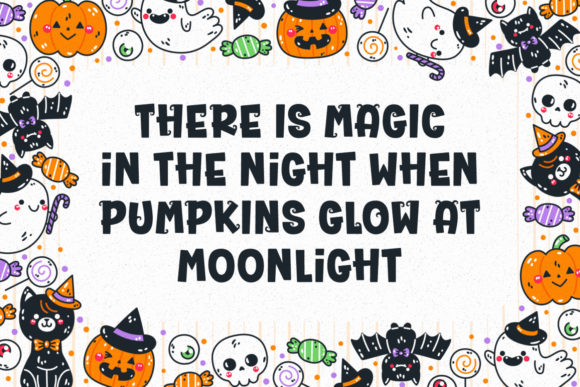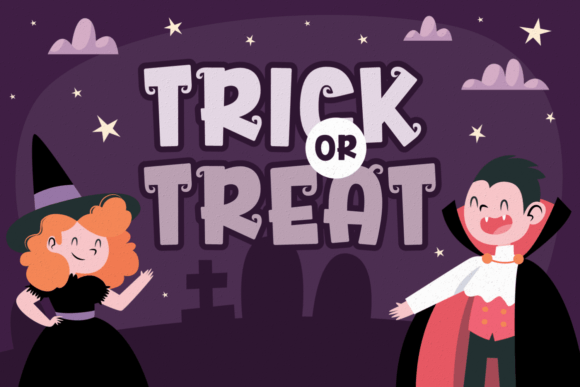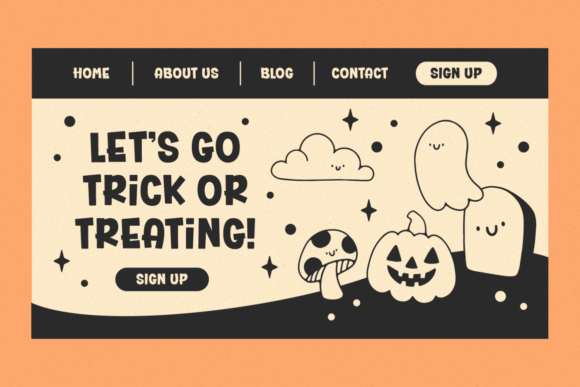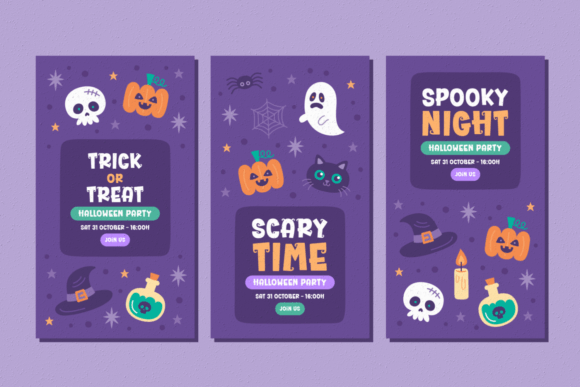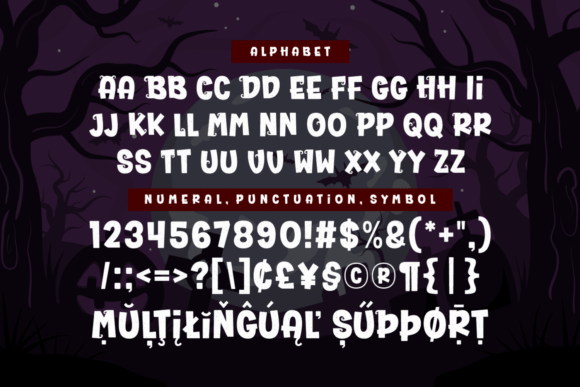
Introducing Giant Witch Font: The Perfect Addition to Your Whimsical Designs
Are you a designer or crafter looking for a unique and playful font to add a touch of magic to your projects? Look no further than the Giant Witch Font! This fun and whimsical display font is perfect for Halloween designs, fantasy-themed crafts, and any project that needs a dash of playfulness.
The Characteristics of Giant Witch Font
Giant Witch Font is a one-of-a-kind display font that features curly little tails on each letter, giving it a truly magical feel. The font’s playful and whimsical design makes it perfect for a variety of projects, from Halloween-themed decorations to fantasy-inspired crafts. The curly tails add a touch of elegance and sophistication, making it suitable for a wide range of design applications.
Uses for Giant Witch Font
So, what can you use Giant Witch Font for? The possibilities are endless! Here are a few ideas to get you started:
- Halloween Designs: Add a touch of spooky whimsy to your Halloween designs with Giant Witch Font. Use it to create eye-catching titles, headings, and decorations for your Halloween-themed projects.
- Fantasy-Themed Crafts: Bring a touch of magic to your fantasy-themed crafts with Giant Witch Font. Use it to create labels, titles, and decorations for your fantasy-inspired projects.
- Signs and Banners: Use Giant Witch Font to create eye-catching signs and banners for parties, events, and special occasions.
- Digital Art: Add a touch of whimsy to your digital art with Giant Witch Font. Use it to create unique and playful text overlays for your digital artwork.
Why Choose Giant Witch Font?
So, why choose Giant Witch Font over other fonts? Here are a few reasons why designers and crafters love this font:
- Unique Design: Giant Witch Font features a unique and playful design that sets it apart from other fonts.
- Easy to Read: Despite its playful design, Giant Witch Font is easy to read and understand, making it perfect for use in a variety of projects.
- Versatile: Giant Witch Font is versatile and can be used in a wide range of design applications, from digital art to signage.
Tips for Using Giant Witch Font
Here are a few tips for using Giant Witch Font in your designs:
- Use it Sparingly: While Giant Witch Font is playful and fun, it can be overwhelming if used too much. Use it sparingly to add a touch of whimsy to your designs.
- Pair it with Other Fonts: Pair Giant Witch Font with other fonts to create a unique and interesting design. Try pairing it with a bold, sans-serif font for a striking contrast.
- Experiment with Colors: Giant Witch Font looks great in a variety of colors. Experiment with different colors to find the perfect one for your design.
In conclusion, Giant Witch Font is a fun and playful display font that is perfect for designers and crafters looking to add a touch of magic to their projects. With its curly little tails and whimsical design, it’s perfect for Halloween designs, fantasy-themed crafts, and any project that needs a dash of playfulness. So why not give it a try and see what kind of magical creations you can come up with?